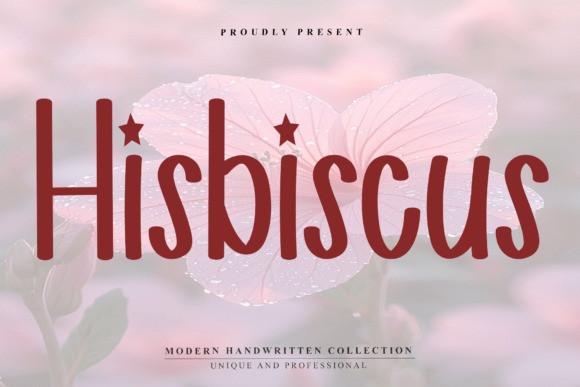
Hisbiscus Font
Hisbiscus Font a modern handwritten typeface that is as fresh as a tropical garden.
This Hisbiscus typeface features friendly, rounded letterforms accented with whimsical star details, making it a standout choice for summer events and floral branding. Use the Hisbiscus font for playful social media graphics, greeting cards, and eco-friendly product labels that need a splash of personality.
With its clean yet artistic style, the Hisbiscus typeface brings a cheerful, sunny vibe to every design it touches.